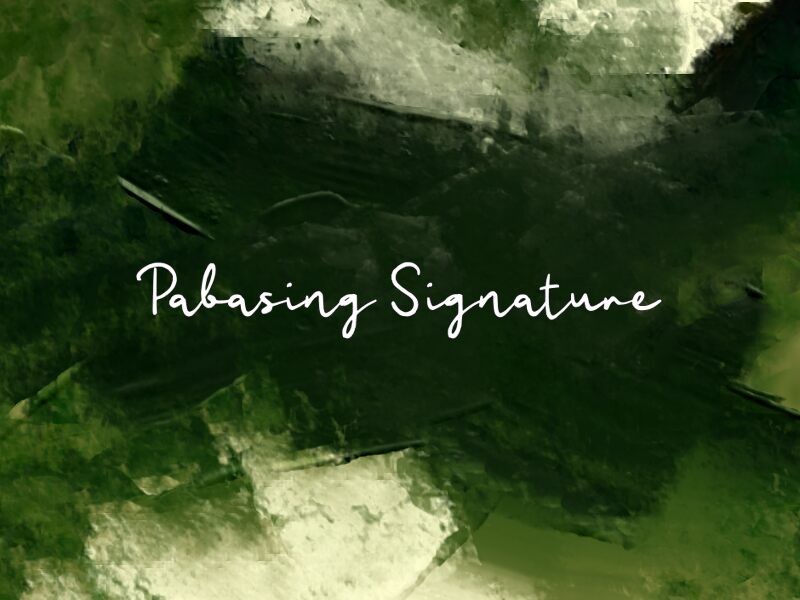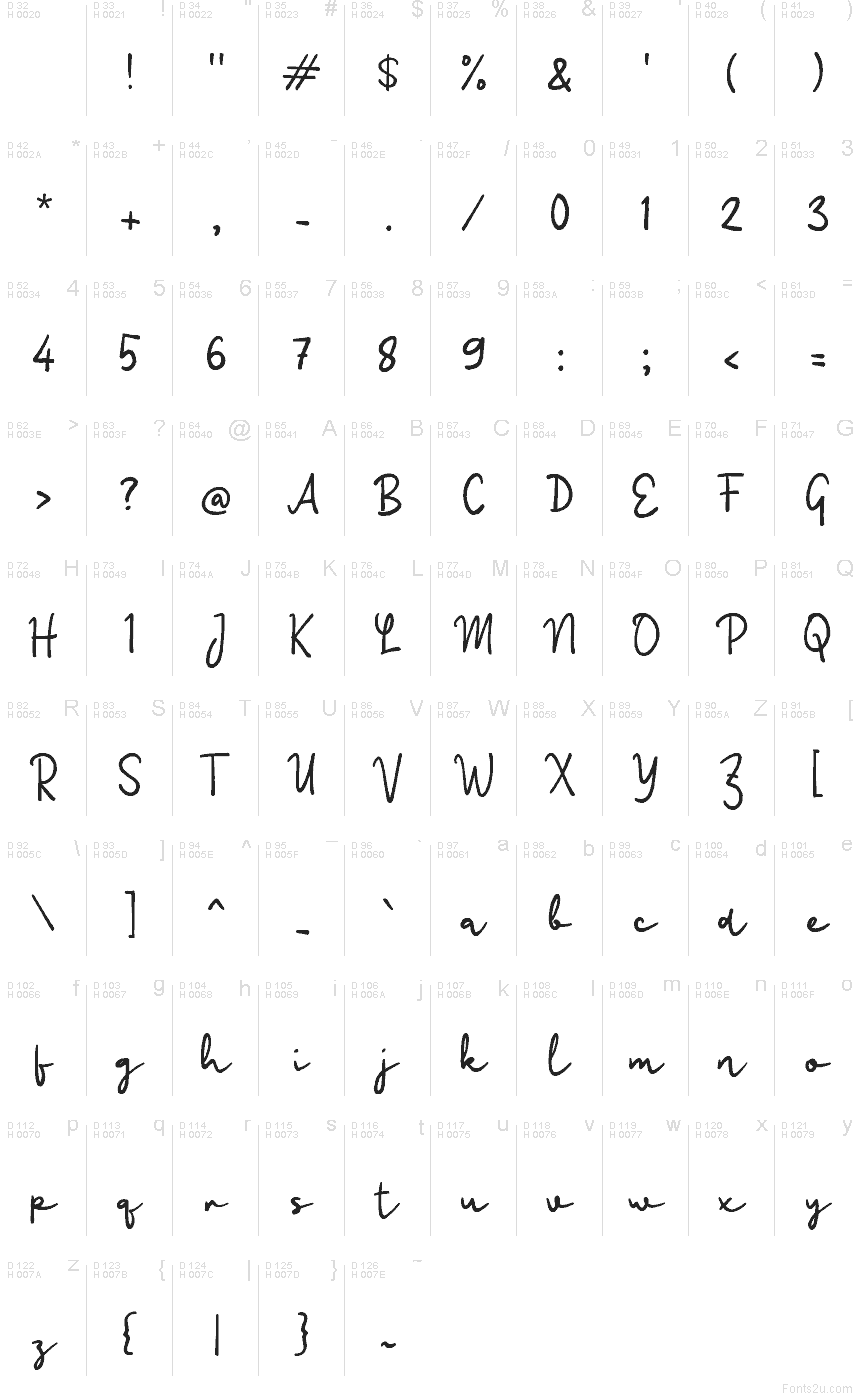
Pabasing Signature
Pabasing Signature font by wep is a free handwritten script typeface that captures the easy flow of a real ink signature. Its tall, looping forms, smooth curves, and slightly irregular stroke widths feel like a quick, confident autograph drawn with a fine-tip pen. The letters stay airy and open, giving you a personal, human touch without sacrificing readability at smaller sizes.
Using Pabasing Signature, you can give brand logos, social media graphics, invitations, product packaging, quote posters, and watermark signatures a relaxed yet polished voice. This free font shines when you let it breathe with generous letterspacing and pair it with a clean sans serif for body text, keeping the script as the expressive accent that carries your visual identity.